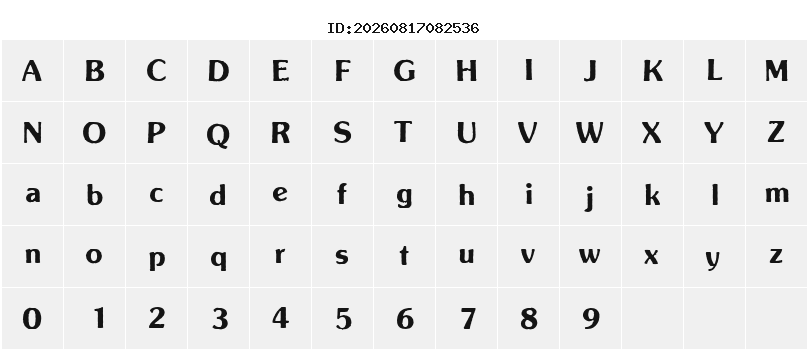
SouvenirGotAntDDem Preview
About SouvenirGotAntDDem.ttf
SouvenirGotAntDDem.ttf is a modern, elegant sans-serif font designed for ultimate readability and visual harmony. Perfect for branding, headlines, web design, and print materials.